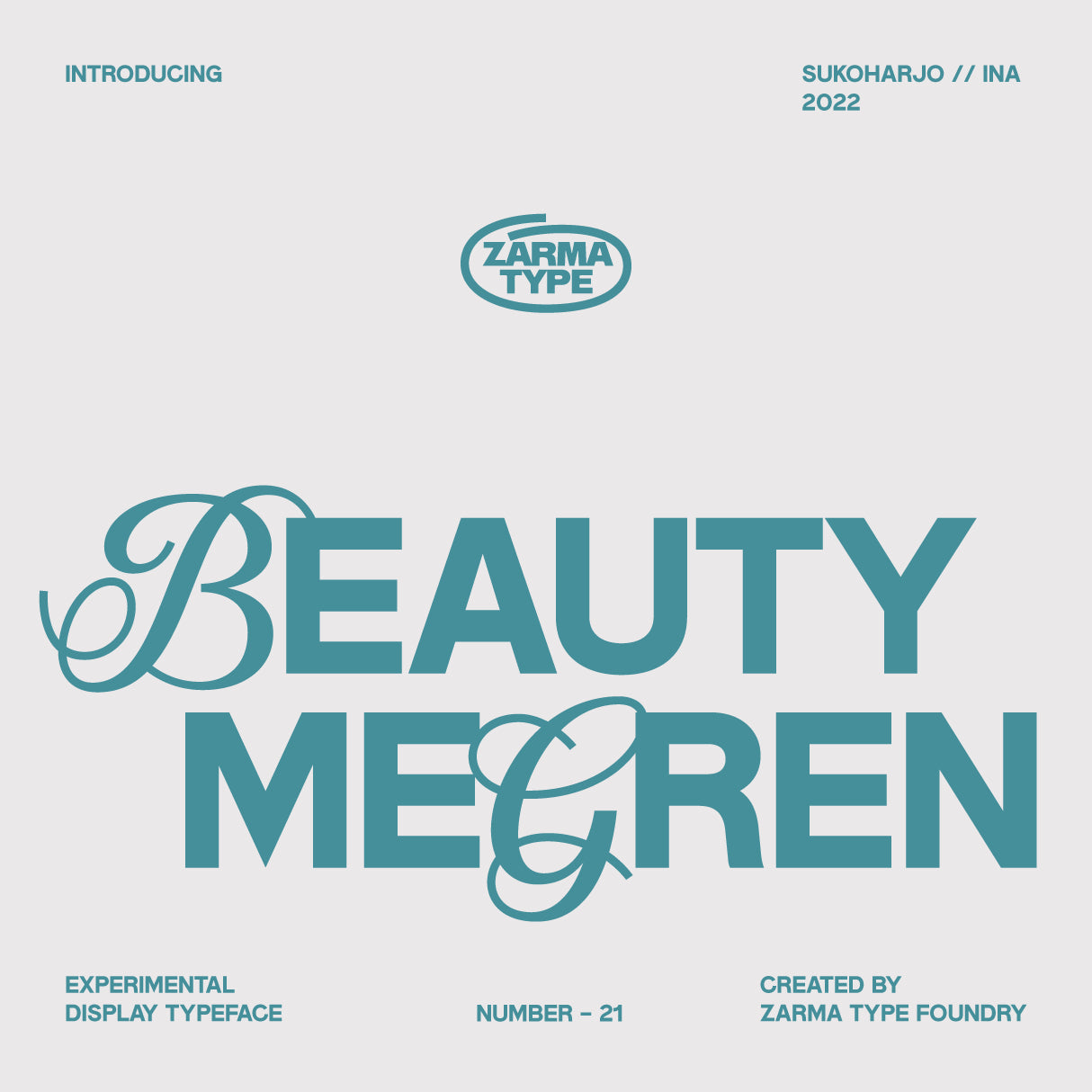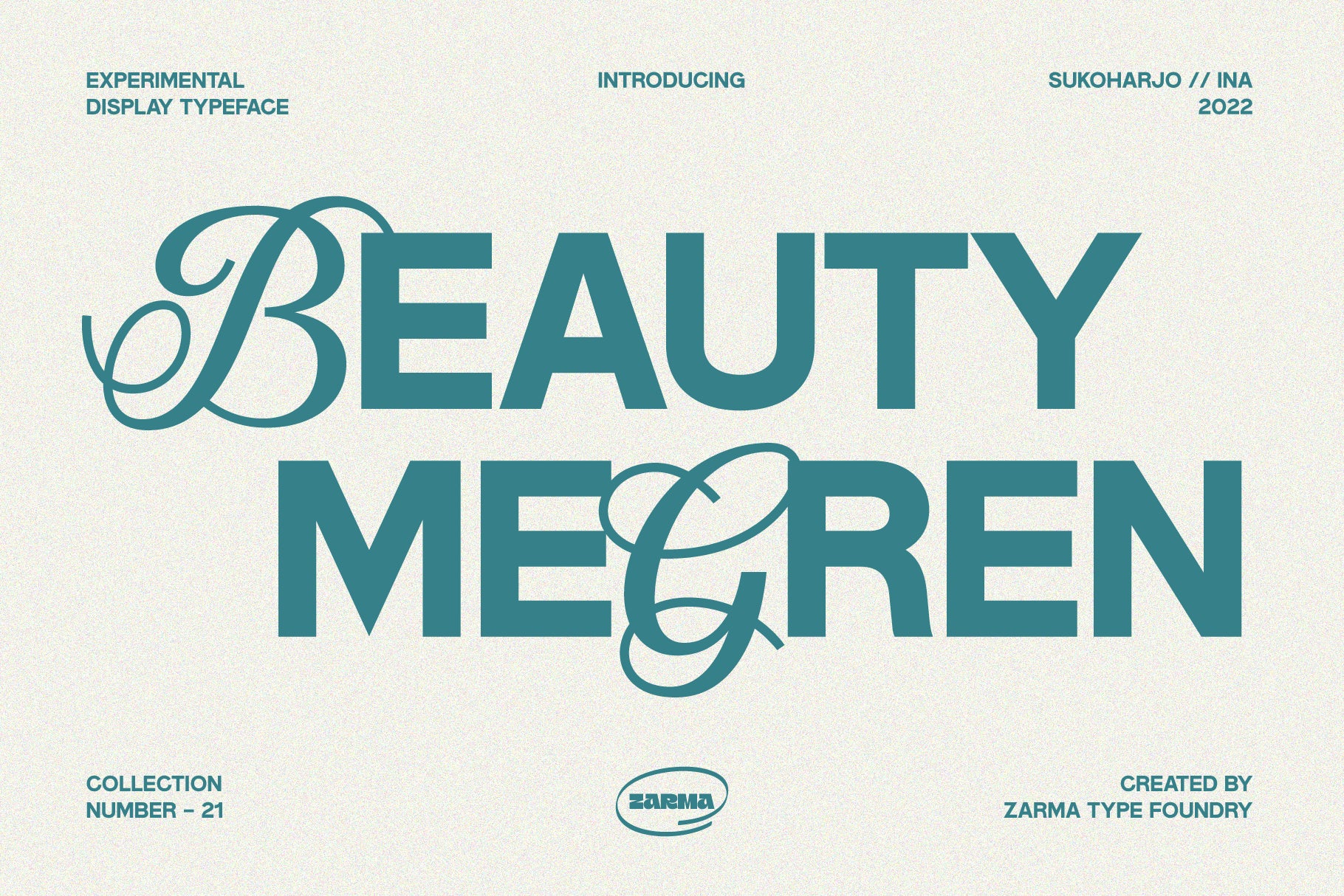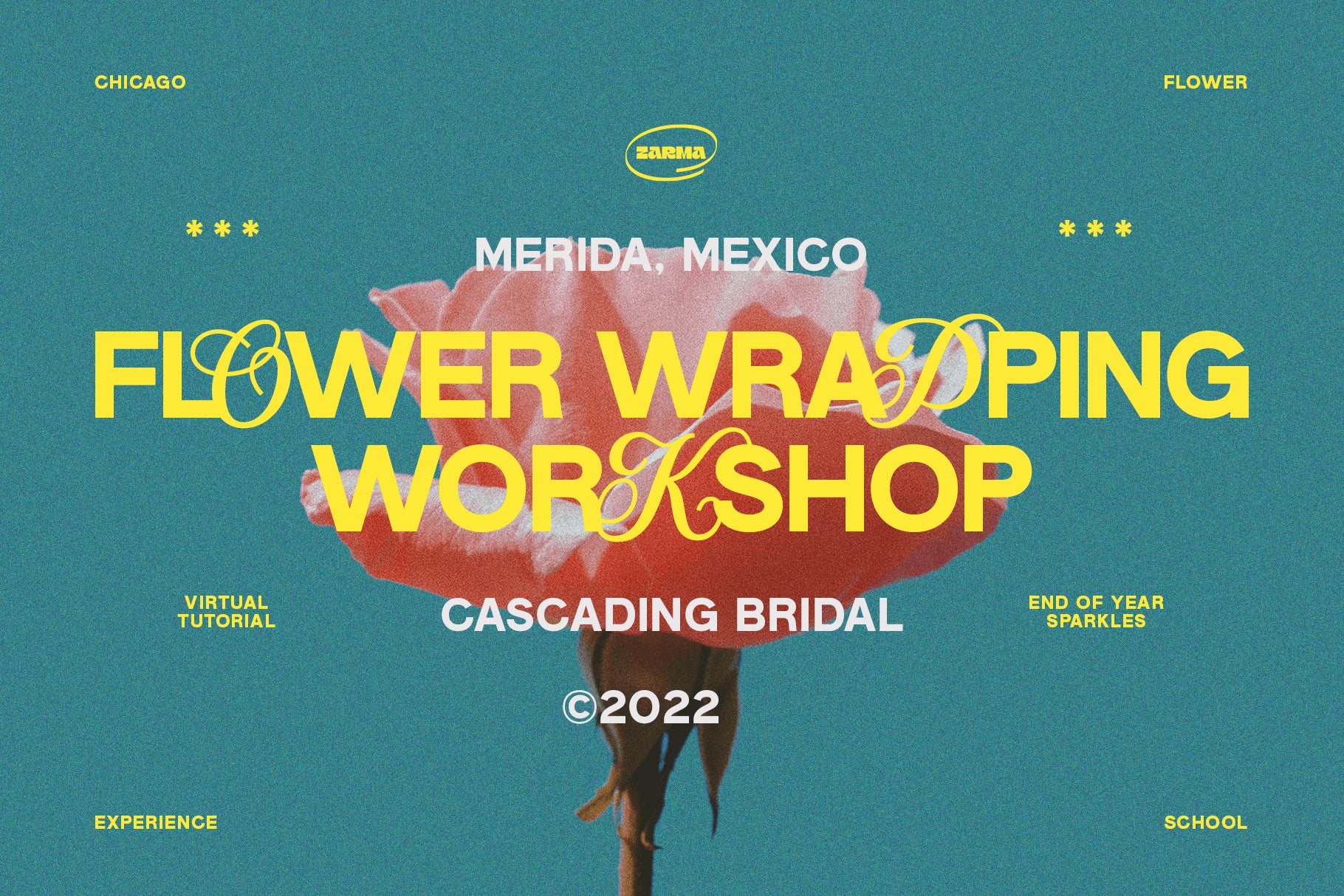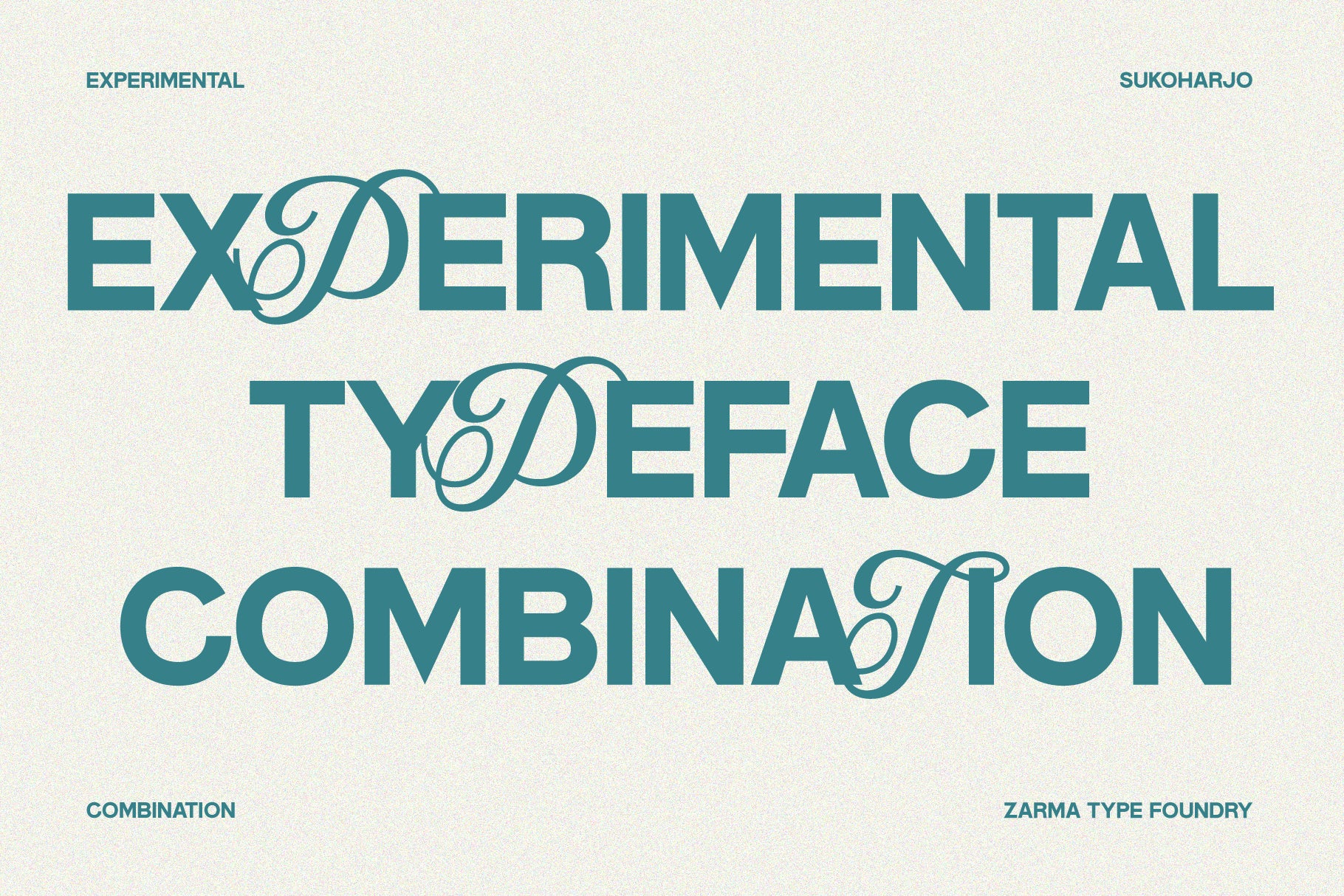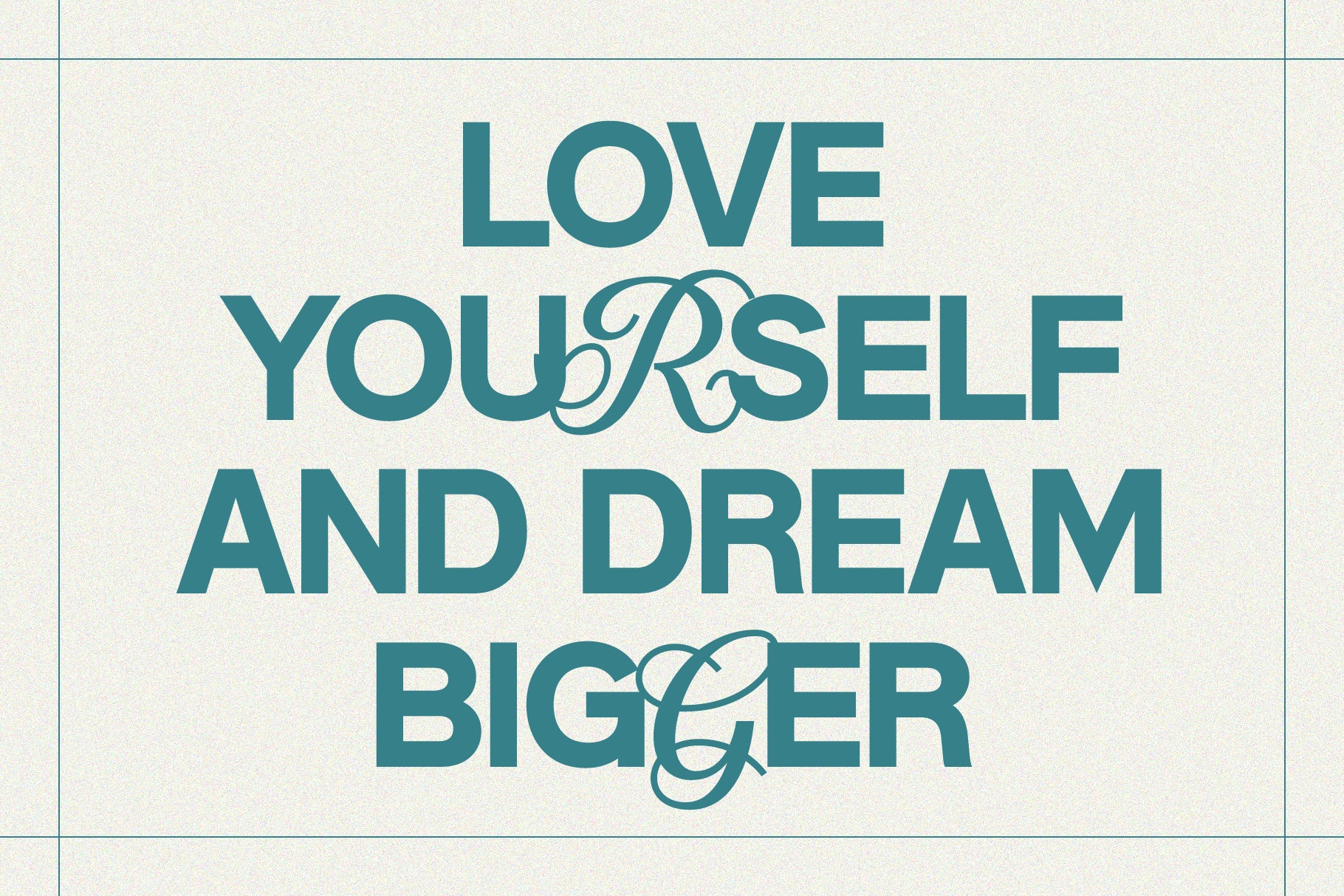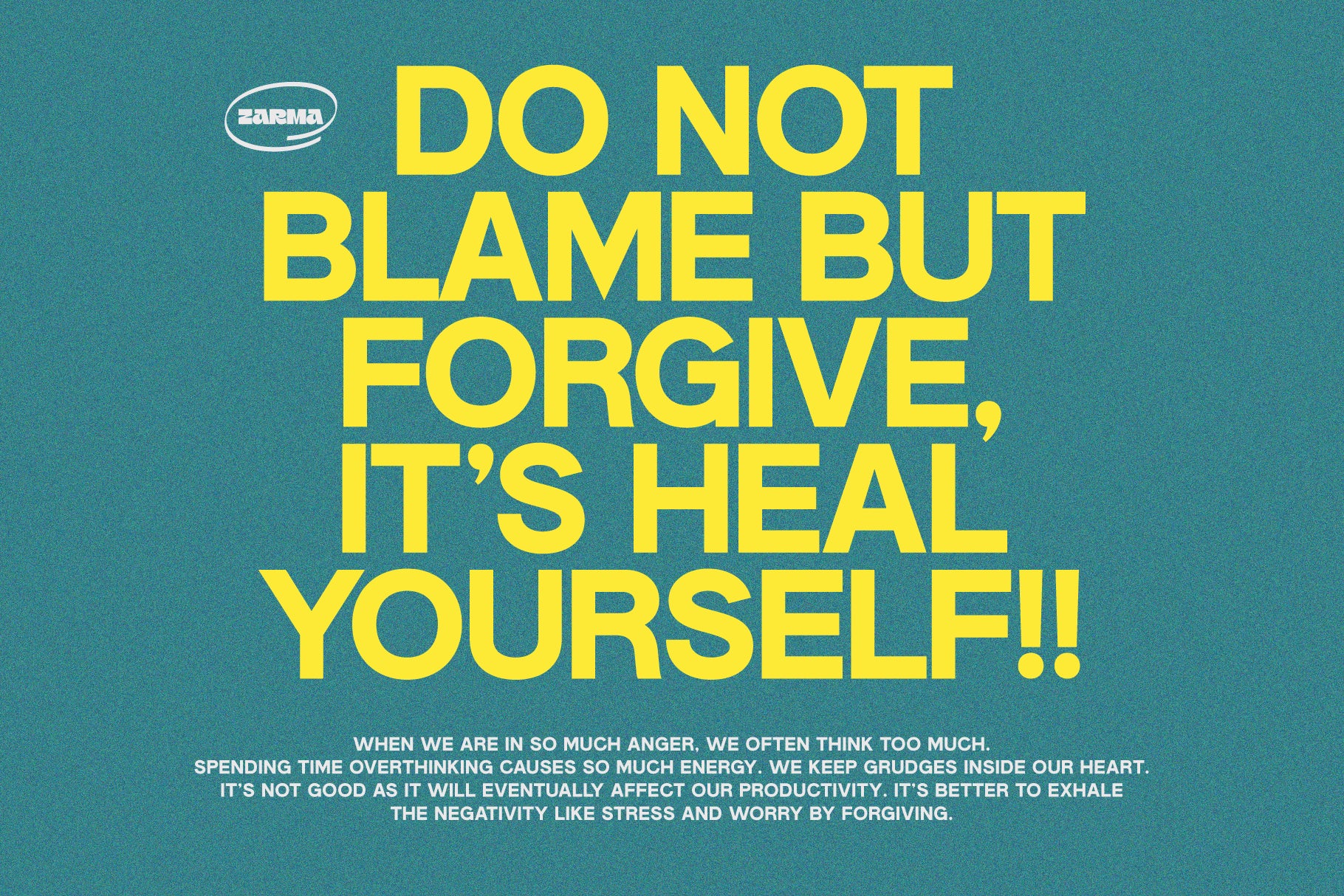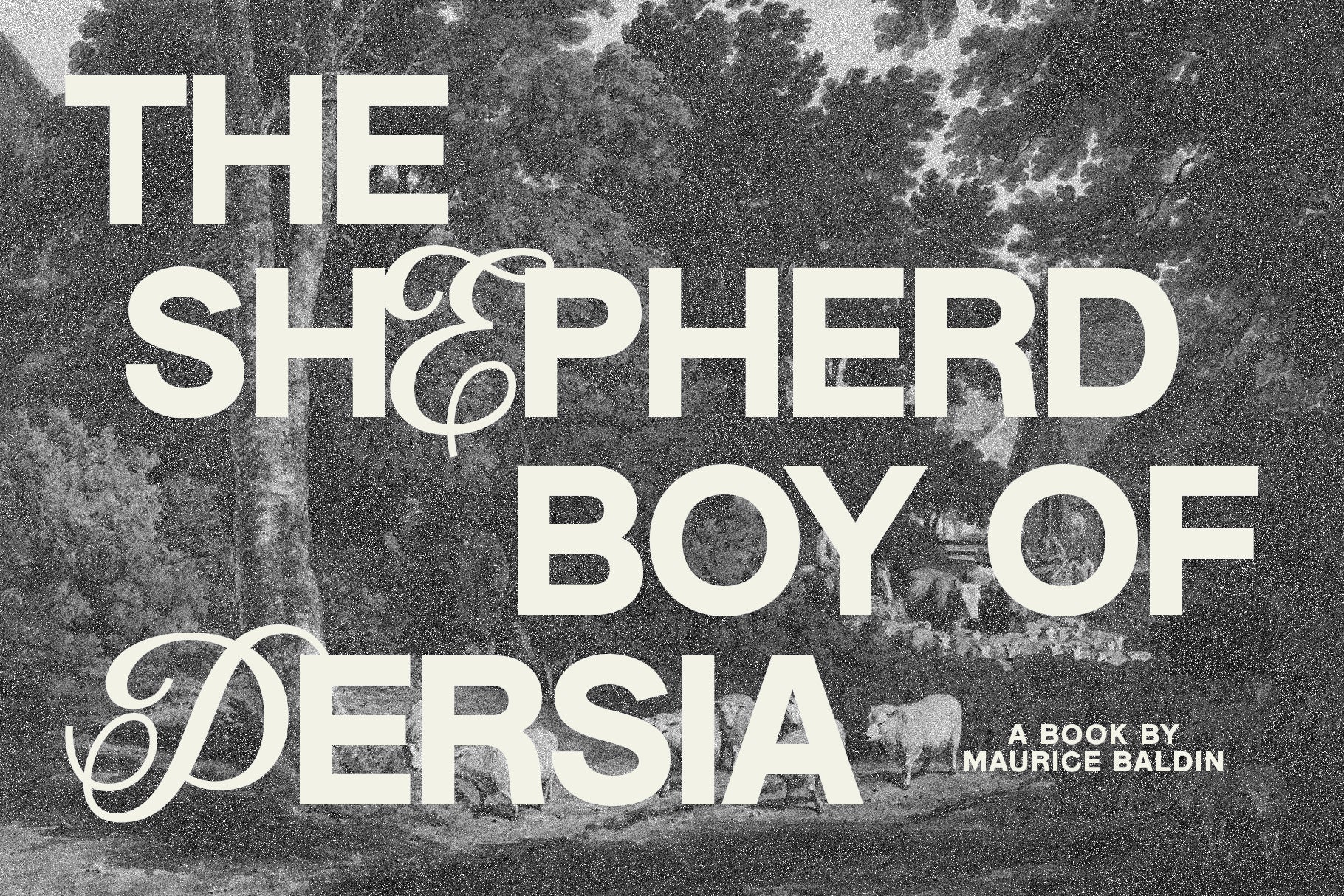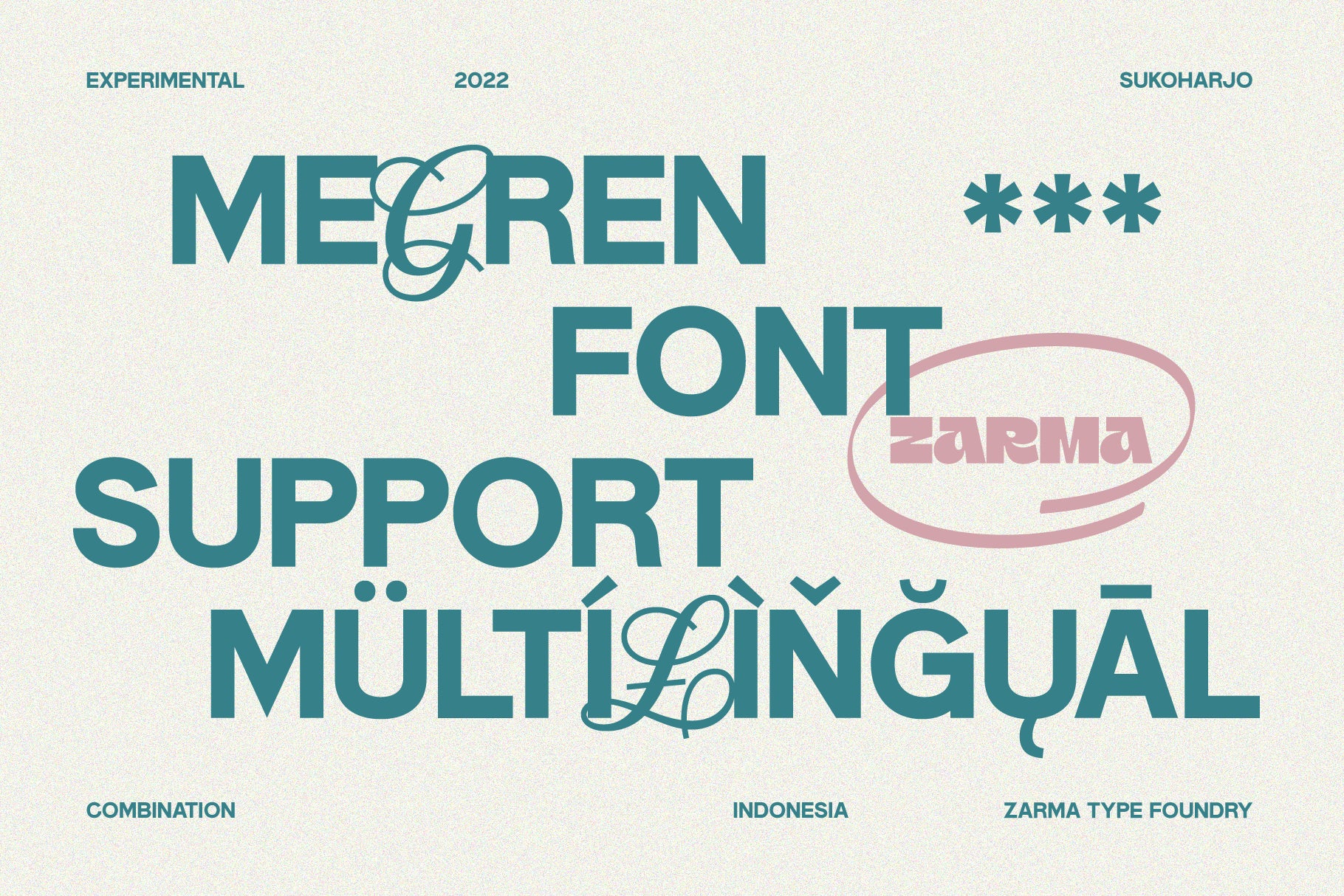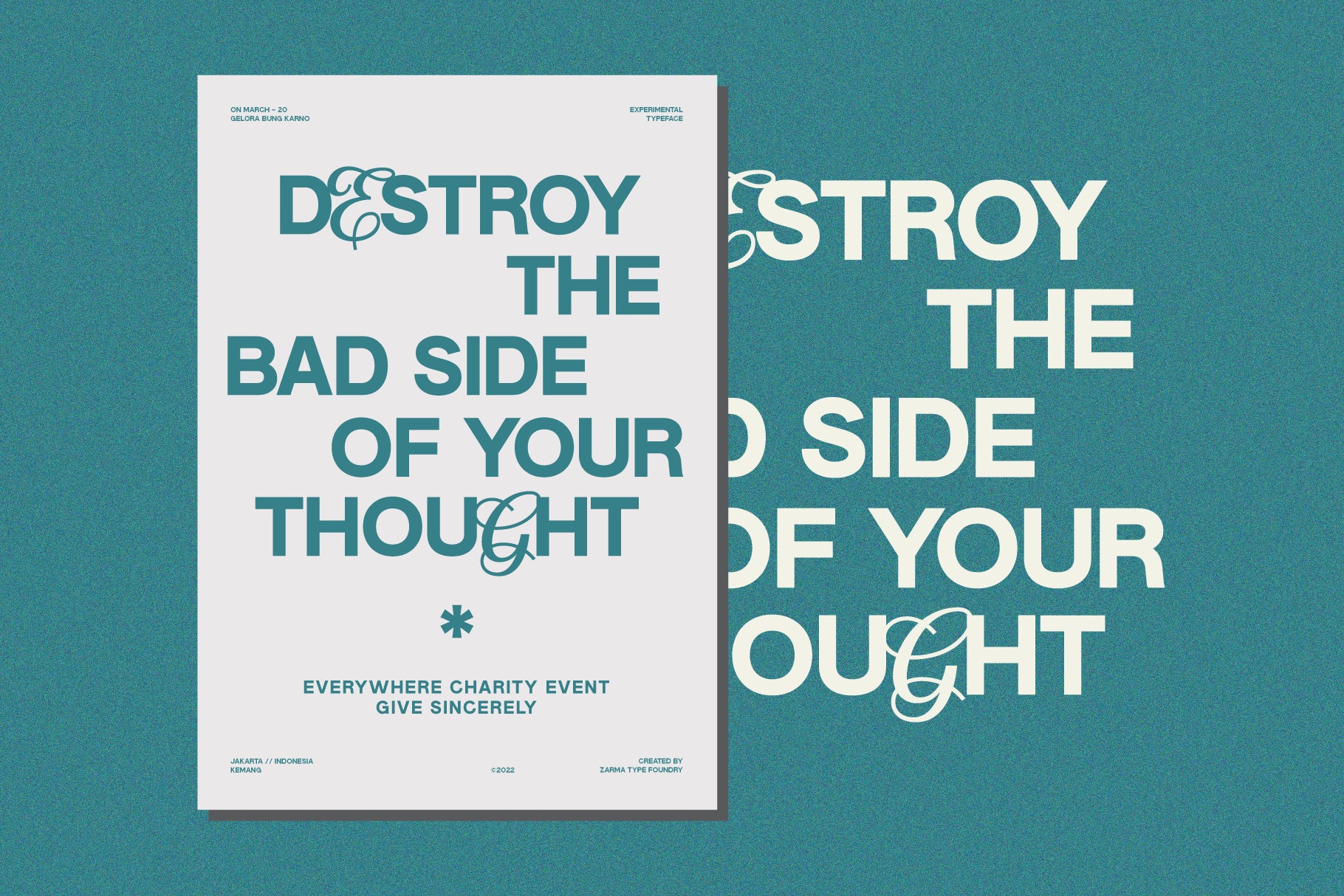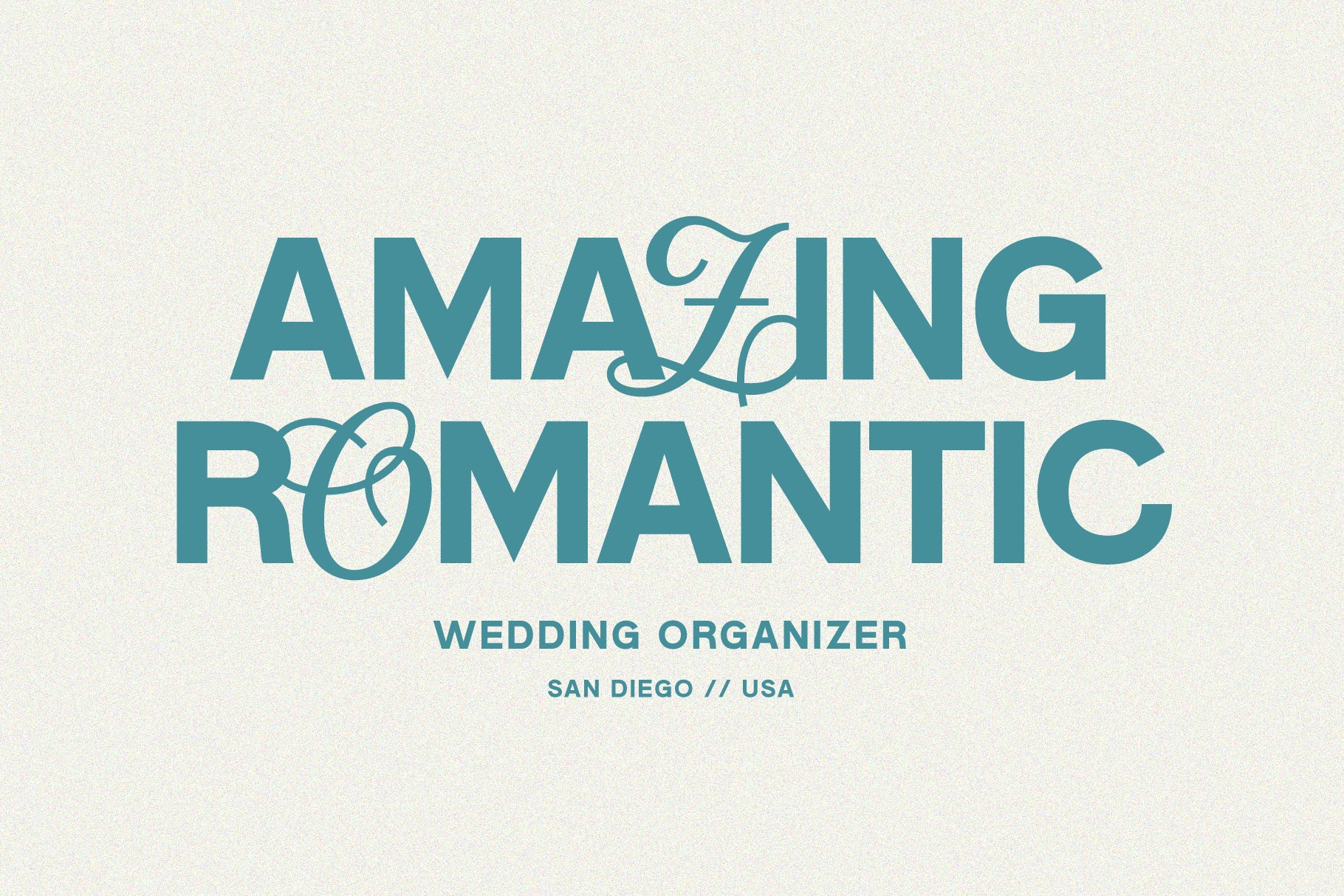
Megren Font
Some ideas refuse to stay in a single style. They long to break the rules, blending elegance with simplicity in ways that feel both unexpected and unforgettable. Megren was born from that desire—an experimental display typeface that unites the timeless grace of copperplate script with the confident clarity of a clean sans serif. Its expressive uppercase letters flow with classic sophistication, while the minimalist lowercase brings balance and modernity, creating a visual rhythm that feels nostalgic yet unmistakably contemporary. The contrast between the two personalities gives every word a distinctive voice, making even the simplest message feel refined, fashionable, and full of character.
Designed for creatives who love typography with personality, Megren is perfect for branding, logos, editorials, packaging, invitations, and any project that deserves a memorable first impression. Packed into a single font file, it includes uppercase and lowercase characters, numbers, punctuation, elegant ligatures, OpenType features, and PUA encoding for easy access to stylistic characters. With Extended Latin coverage and multilingual support, Megren is ready to bring your ideas to life across a wide range of languages while delivering a unique blend of vintage charm and modern sophistication that refuses to blend into the crowd.
Megren Font is an experimental display typeface that combines the elegance of copperplate script with the clarity of a clean sans serif. It includes uppercase and lowercase characters, numbers, punctuation, elegant ligatures, OpenType features, and PUA encoding, offering Extended Latin coverage and multilingual support.